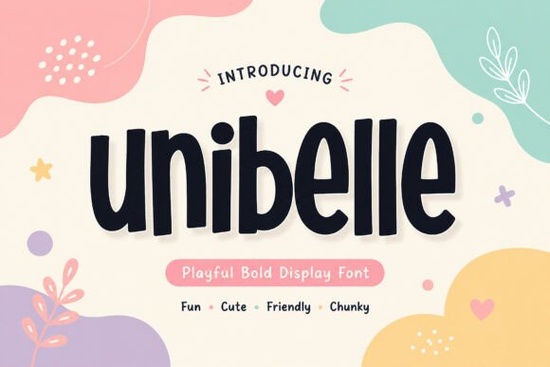
If you're looking for a bold, playful typeface that adds warmth and personality to your designs, the Unibelle Font is worth a closer look. With chunky, rounded letterforms and a handcrafted feel, this display font works beautifully for kids branding, packaging, social media graphics, stickers, and print-on-demand products. It has a friendly, quirky character that feels approachable without being overly childish.
What Makes Unibelle Stand Out from Other Playful Typefaces?
Unibelle's design is all about balance. It's bold enough to grab attention but soft enough to feel welcoming. The rounded shapes give it a handmade quality that's hard to find in most display fonts. Unlike overly decorative scripts that sacrifice readability, Unibelle stays clean and legible at various sizes whether you're using it on a small sticker or a large poster.
If you've used the Candyhorn candy-themed typeface for sweet, dessert-inspired designs, you'll notice Unibelle takes a broader approach. It doesn't lock you into a specific theme, which makes it more versatile across different project types and seasons.
Where Does This Font Work Best?
Unibelle is a strong choice for any project that needs to feel fun, warm, and friendly. Here's where it tends to perform well:
- Kids branding and logos clothing labels, toy companies, nursery businesses, educational apps
- Product packaging candy boxes, baby product labels, snack wrappers
- Social media graphics Instagram posts, story templates, Pinterest pins
- Print-on-demand products t-shirts, mugs, tote bags, stickers
- Event materials birthday invitations, baby shower flyers, school posters
- Greeting cards thank-you cards, holiday cards, party invitations
For seasonal projects, you could pair Unibelle with something like the Santa Sugar holiday display typeface to create cheerful Christmas packaging. The rounded, playful energy in both fonts creates a natural visual pairing that feels cohesive.
Is It a Good Fit for Print-on-Demand Sellers?
Yes, and here's why. POD products often need fonts that look sharp at both small and large sizes. A font that's too thin disappears on a mug mockup. A font that's too ornate turns into a blob on a tiny sticker. Unibelle's bold, clean letterforms hold up well across formats.
The kids and family niche is one of the top-selling categories on platforms like Redbubble, Etsy, and Merch by Amazon. Unibelle's cheerful, approachable look fits that market perfectly. You could also use it for baby announcement designs, parenting-themed products, or playful quote graphics.
If you're already working with the Amazing Newbie typeface for creative work, Unibelle makes a good complement. Both have a playful vibe, but Unibelle's heavier weight gives it more visual punch especially on product mockups where you need the text to stand out at a glance.
How Does It Compare to Other Display Fonts?
Here's how Unibelle stacks up against a few other popular options on Creative Fabrica:
- Unibelle Bold, rounded, and versatile; great for kids designs and general playful branding
- Candyhorn Candy-themed sweetness; best for dessert shops and confectionery branding
- Spookify Spooky display font; ideal for Halloween designs and horror-themed merchandise
- Santa Sugar Christmas candy style; perfect for holiday packaging and festive social posts
- Amazing Newbie Fresh and playful; a solid option for beginner-friendly branding
For Halloween-specific projects, the Spookify Halloween-themed typeface is a better thematic fit. But if you want one font that works year-round across multiple playful design styles, Unibelle gives you more flexibility.
Quick Tips for Using Unibelle in Your Next Project
- Pair it with a simple sans-serif for body text to keep your layouts balanced
- Use it at larger sizes for headlines, logos, and product titles where its bold personality really shows
- Try it in bright, cheerful colors think pastels, warm yellows, and soft pinks to match its friendly energy
- Test it on your mockups before committing to a print run, especially for small items like stickers
- Combine it with hand-drawn illustrations for a cohesive, craft-inspired look